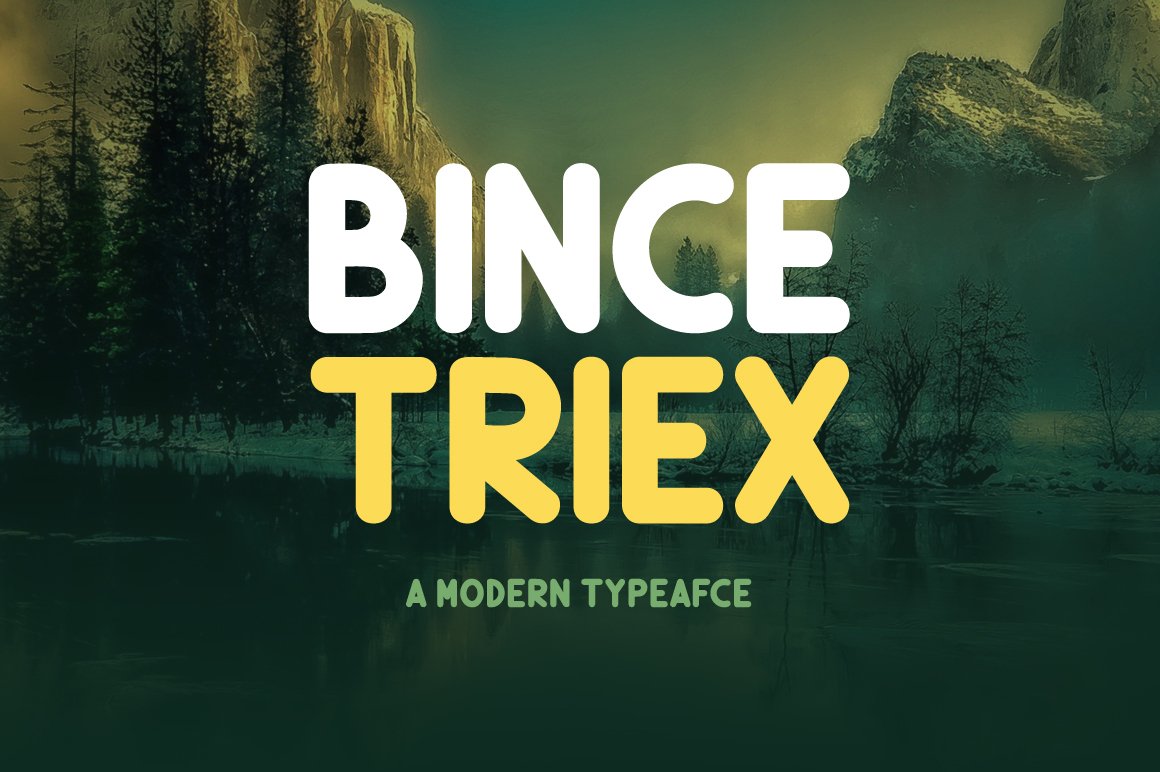
Have you ever stared at a blank screen, trying to come up with the perfect font to match your design? We’ve all been there. The moment when the words just flow, and the perfect font comes to mind – that’s what makes being a designer so magical. For me, that moment happened when I stumbled upon the Bince Triex Font.
Bince Triex is a beautiful, rounded sans serif display font that’s perfect for adding a touch of elegance to any design. Whether you’re creating a wedding invitation, a product label, or a social media graphic, Bince Triex Font is easily readable and stands out against many different types of designs. Its versatility makes it a valuable addition to any designer’s collection.
Adding the Bince Triex Font to your collection today can elevate your designs and help you stand out from the crowd. So why not give it a try and see the magic for yourself?
- Unique Characteristics: Bince Triex Font features a unique blend of futuristic and retro elements, with a distinctive, hand-crafted feel and a wide range of stylistic alternates.
- Kerning and Ligatures: Bince Triex Font includes advanced kerning and ligature pairs, ensuring smooth text rendering and a professional appearance.
Bince Triex Font Review
I recently had the chance to work with the Bince Triex Font, and I must say it’s an interesting addition to the font family. Here are some of its strengths and weaknesses.
- Unique aesthetic: The Bince Triex Font has a distinct look that sets it apart from other sans-serif fonts.
- Good for titles: The font’s bold and geometric style makes it suitable for headlines and titles.
- High legibility: Bince Triex Font is easy to read, even at smaller font sizes.
- Limited font sizes: The font may not be the best choice for body text or paragraphs, as it can become overwhelming at smaller sizes.
- Not suitable for body text: As mentioned earlier, the font is best used for titles and headlines, as it may not provide the best reading experience for longer texts.
Overall impression
The Bince Triex Font is a solid choice for designers looking to add some visual interest to their projects. While it may not be the most versatile font, it excels in specific situations, such as creating bold and eye-catching titles. With its unique aesthetic and good legibility, the Bince Triex Font is definitely worth considering for your next design project.
Tips for Getting the Most Out of Bince Triex Font
Use Bince Triex Font for creative headings and titles.
Pair it with a clean sans-serif font for body text.
Experiment with different font sizes and colors to add visual interest.
Use it for branding and marketing materials, such as business cards and brochures.
Alternatives to Bince Triex Font
The Bince Triex Font is a unique sans-serif font known for its modern and minimalist aesthetic. However, it may not be suitable for every design project. Here are a few alternatives to consider.
1. Inter Font
Inter Font is a modern sans-serif font designed by Rasmus Andersson. It’s a highly legible font suitable for digital applications and body text. Inter Font is a great alternative to Bince Triex Font for projects that require a clean and minimalistic look. It’s also a good choice for titles and headings.
Comparison: Inter Font has a more rounded and friendly feel compared to the geometric and angular Bince Triex Font.
2. Public Sans Font
Public Sans Font is a free, open-source sans-serif font designed for digital use. It’s highly legible and suitable for body text, titles, and headings. Public Sans Font is a great alternative to Bince Triex Font for projects that require a clean and modern aesthetic.